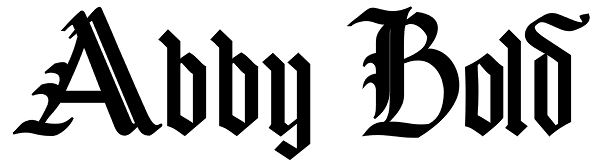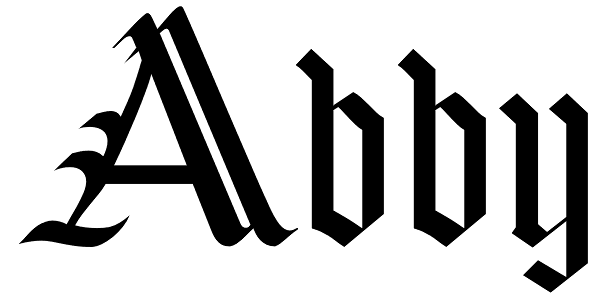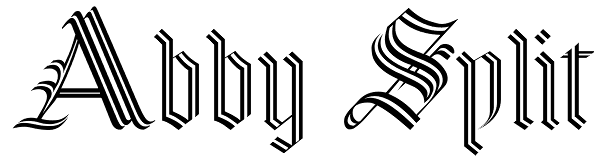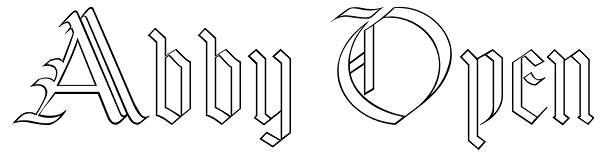
Abby
The Abby family are simple blackletter faces and can be used in any application calling for a gothic style type. The more complex weights: HiLite, Lowlite, Open, Split, Etched and Etched5 are best used sparingly. By using a regular face and a cut...
Abby Bold
Abby Etched
Abby Etched5
Abby Hi Lite
Abby Lowlite
Abby
Abby Split
Abby Open